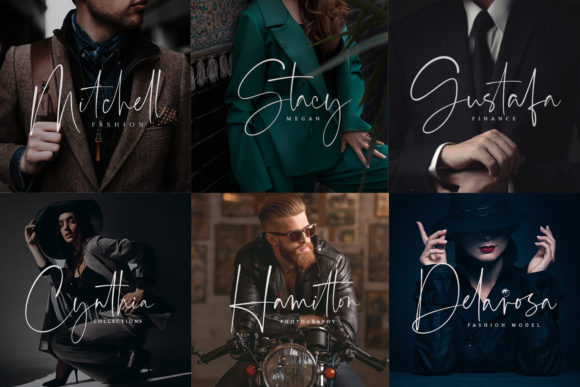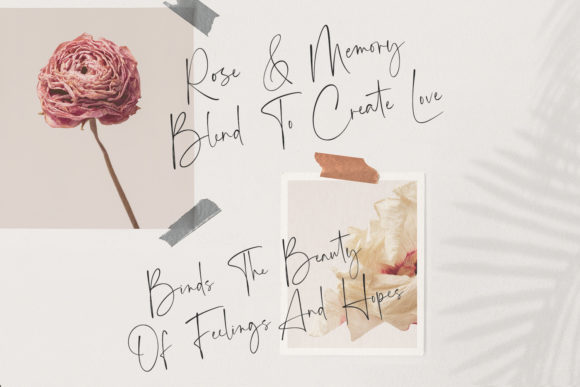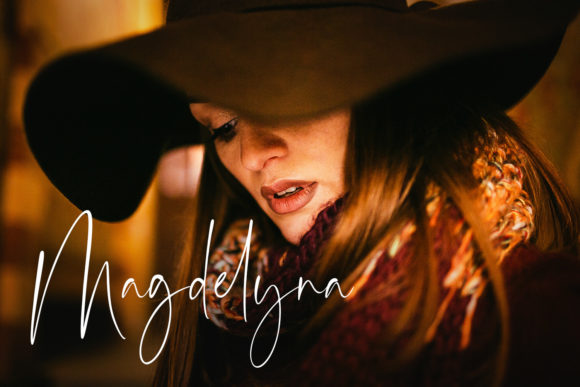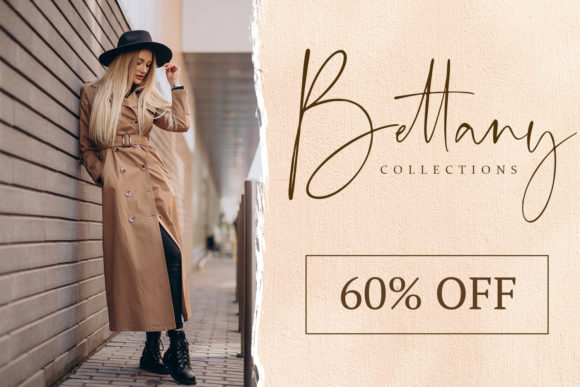
About Angelic Smiles Font
Angelic Smiles is a stylish and incredibly elegant script font. It looks stunning on wedding invitations, thank you cards, quotes, greeting cards, logos, business cards and more. This font is PUA encoded which means you can access all of the glyphs and swashes with ease!